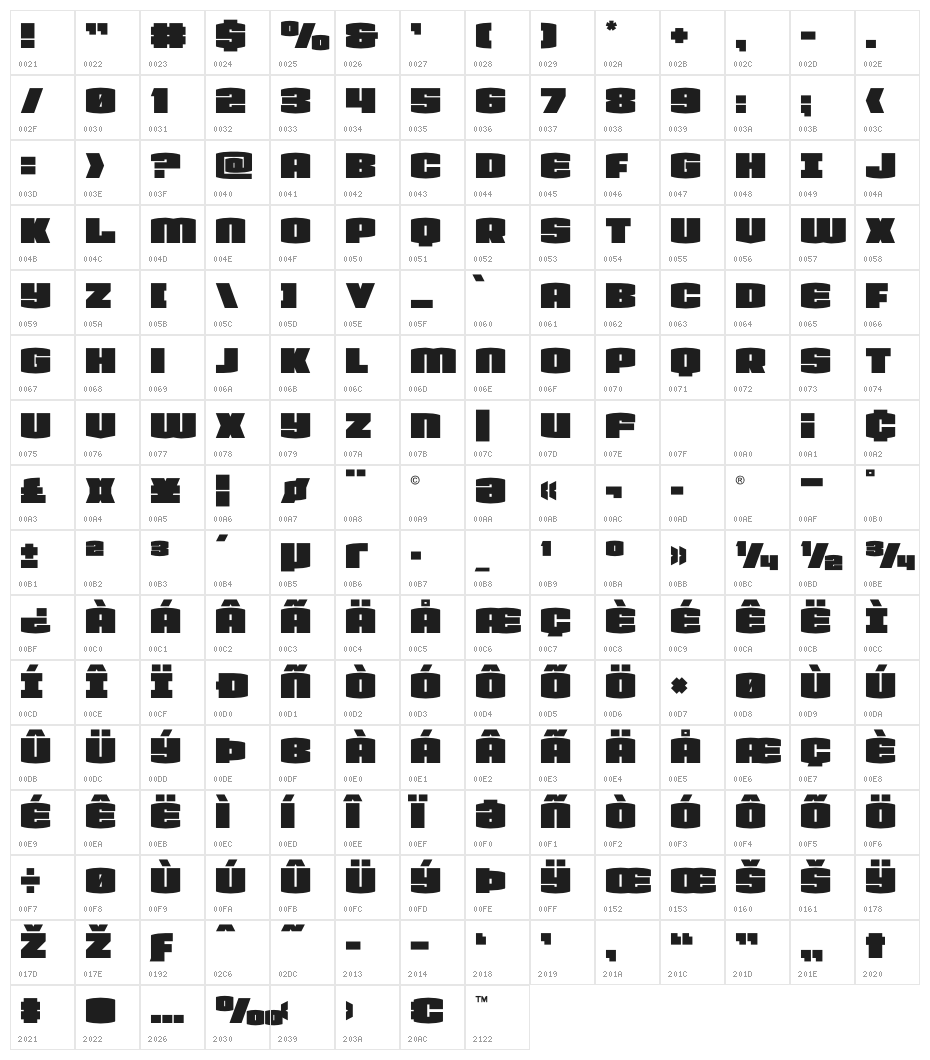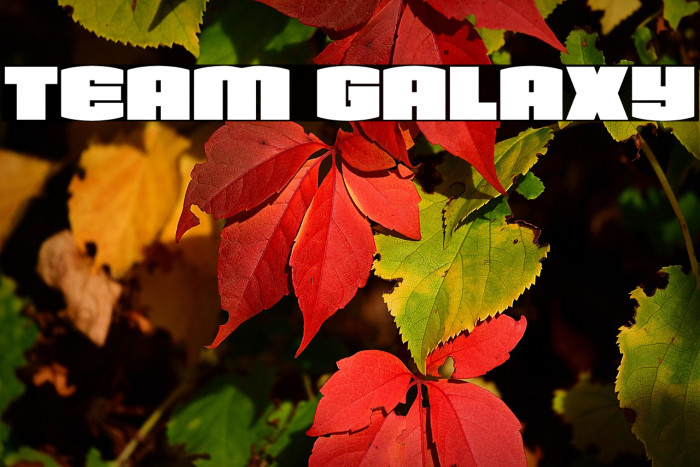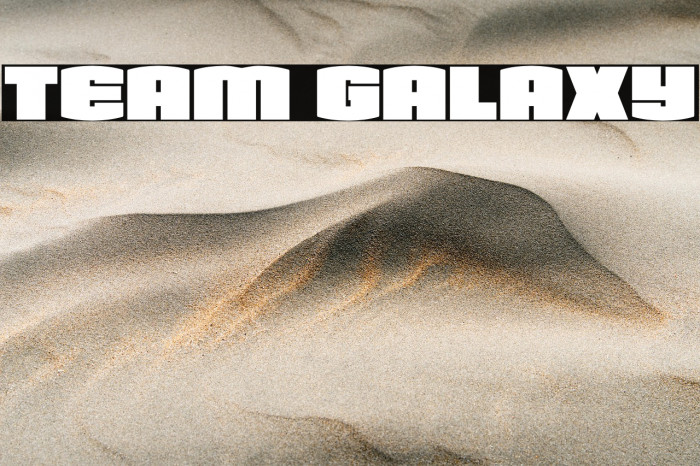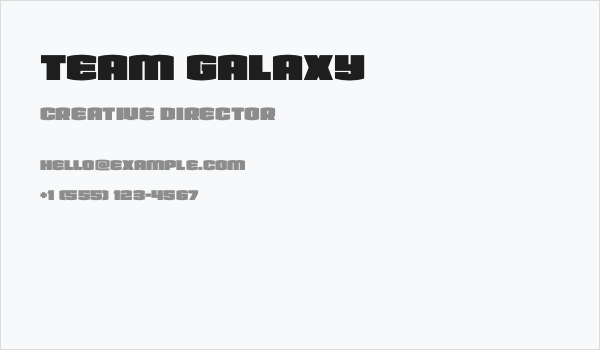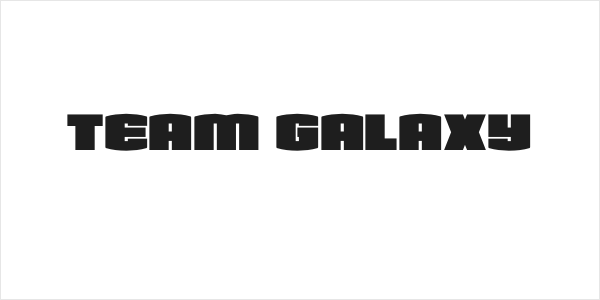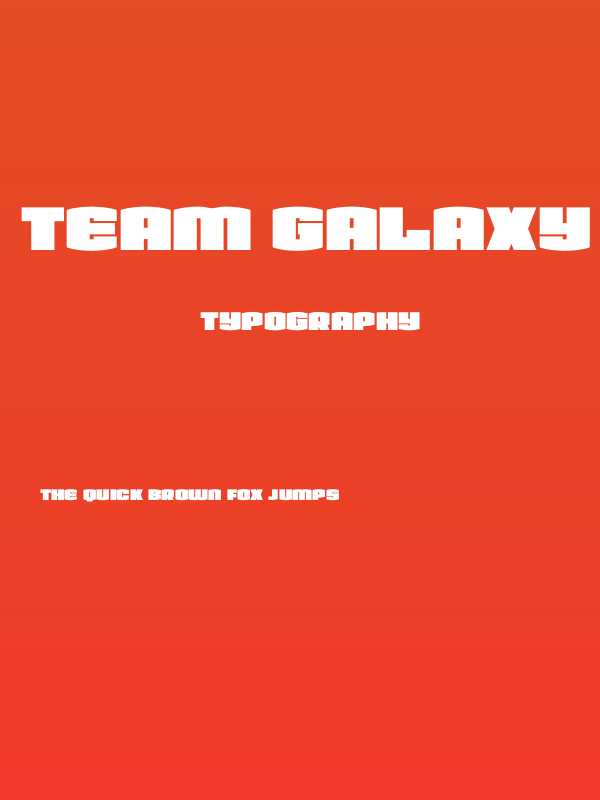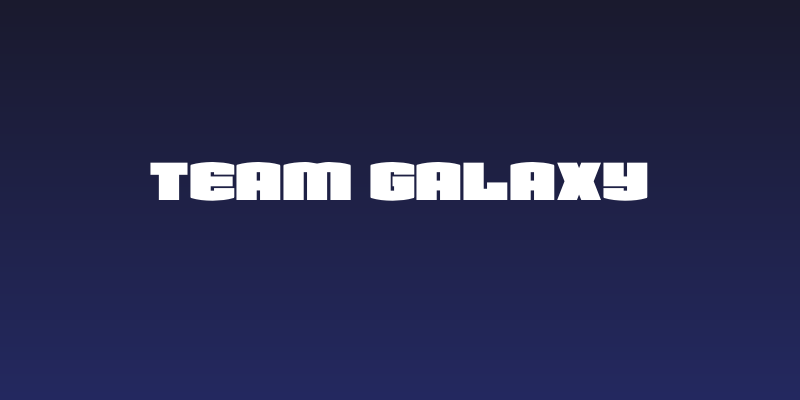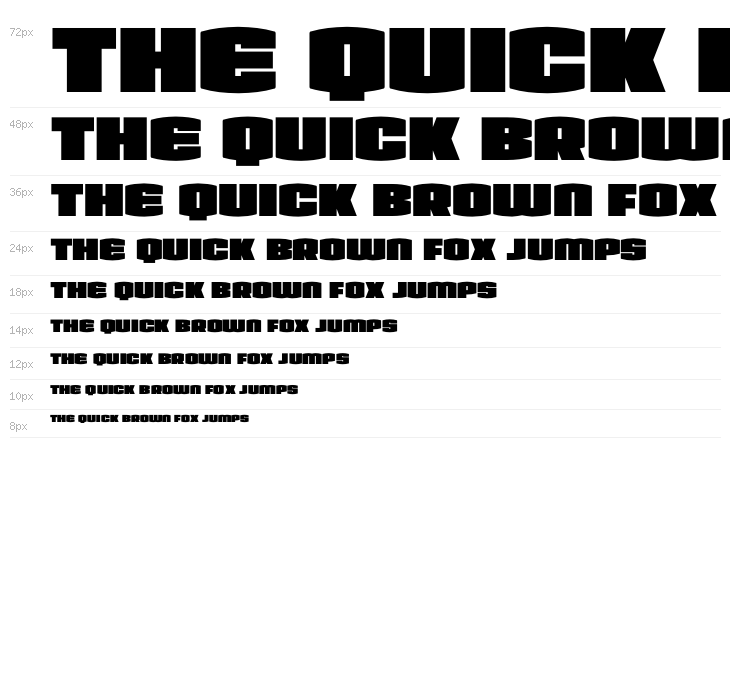
Team Galaxy Font
Team Galaxy Description
This font features a bold and robust design, characterized by its thick, blocky letters that convey strength and impact. The uppercase and lowercase letters maintain a consistent width, creating a uniform appearance. The numbers and special characters are similarly bold, ensuring readability and emphasis. The overall style is modern and assertive, making it suitable for projects that require a strong visual presence. The font's design is straightforward, with minimal decorative elements, focusing on clarity and boldness.
| Proposed Projects | Ideal for sports team logos, posters, headlines, and branding materials that require a bold statement. |